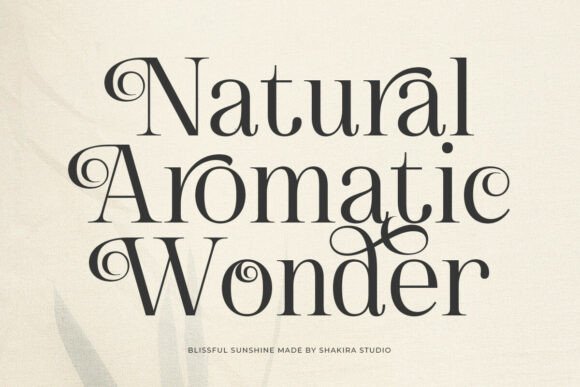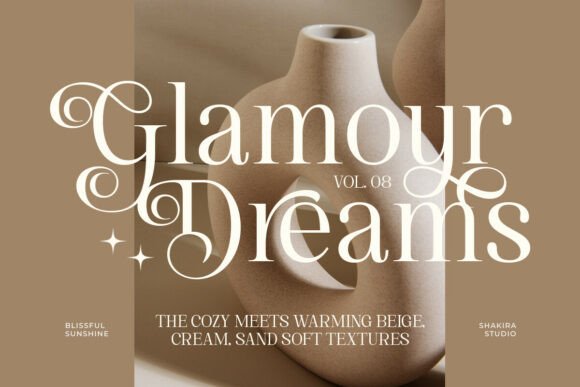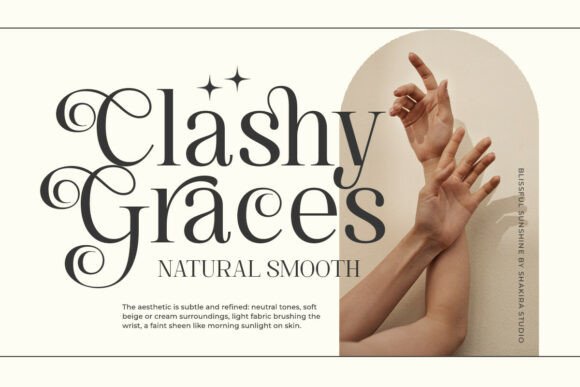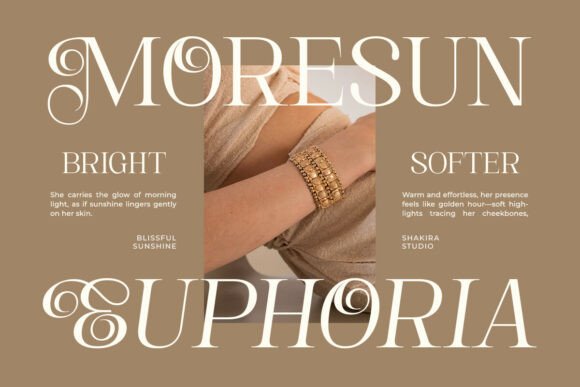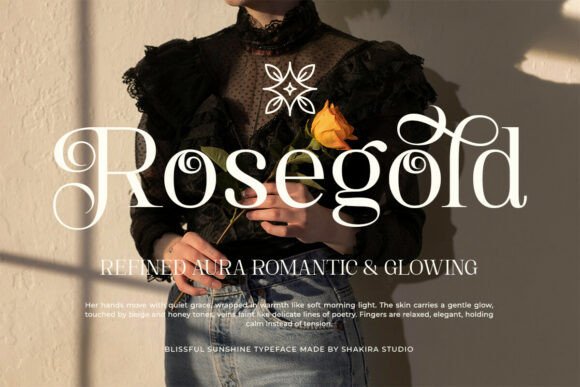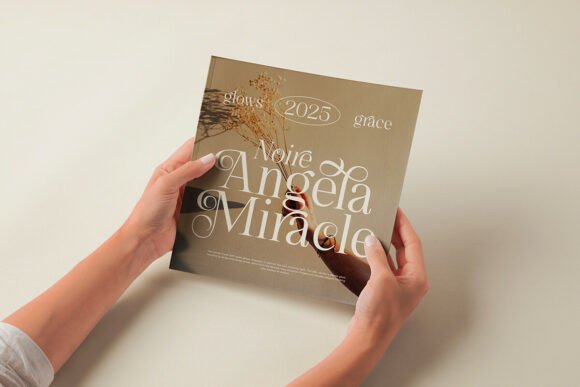
Unleashing the Magic of Blissful Sunshine Font
There’s something special about stepping into a sunny garden on a warm summer morning, surrounded by vibrant flowers and the gentle hum of bees. It’s a moment that sparks creativity, fills the heart with joy, and inspires us to bring a touch of magic to our work. For designers, this feeling is exactly what the Blissful Sunshine Font is all about – capturing the essence of romance, elegance, and whimsy in every letter.
This beautiful modern elegant swash serif is designed to transport your audience to a world of wonder and delight. With its graceful curves and stylish contrast, the Blissful Sunshine Font is perfect for wedding invitations, branding, packaging, and feminine editorial layouts. Whether you’re creating a romantic boutique brand or designing a whimsical wedding stationery, this enchanting typeface is sure to add a touch of magic to your work.
Blissful Sunshine Font Key Features
- Font Family: Blissful Sunshine Font
- Unique Characteristics: Hand-drawn, elegant, and modern design with a mix of rounded and sharp edges, perfect for creating a warm and inviting atmosphere in branding and design projects.
Blissful Sunshine Font Review
Overall, I found the Blissful Sunshine Font to be a cheerful and optimistic choice for any design project. ✨ It has a unique and whimsical feel that’s perfect for adding a touch of personality to your work. The font’s curves and rounded edges make it feel soft and approachable.
Here are some of the things I like about this font:
- Its high x-height makes it easy to read, even at smaller font sizes.
- The font’s bold and regular weights are well-balanced, making it versatile for a variety of design applications.
- The font’s rounded edges add a touch of friendliness and approachability.
- The font’s ligatures can be a bit inconsistent, which may affect readability in certain situations.
- The font may not be suitable for formal or professional designs, as it can come across as a bit too playful.
- The font’s limited character set may make it difficult to use in certain languages or for complex text-based designs.
- ⚠️ The font’s kerning can be a bit off in some cases, which may affect the overall appearance of your design.
Overall, I think the Blissful Sunshine Font is a great choice for designers who want to add a touch of whimsy and personality to their work. While it may not be suitable for every project, it’s definitely a great option for designs that need a bit of flair.
Getting the Most Out of Blissful Sunshine Font
To get the most out of the Blissful Sunshine Font, use it in combination with bright and pastel colors to create a cheerful and uplifting design. Use it for titles, headings, and body text to add a touch of whimsy to your design.
The Blissful Sunshine Font is perfect for:
- Summer-themed designs and marketing materials